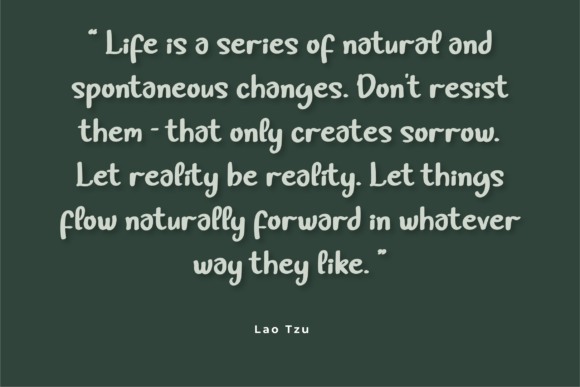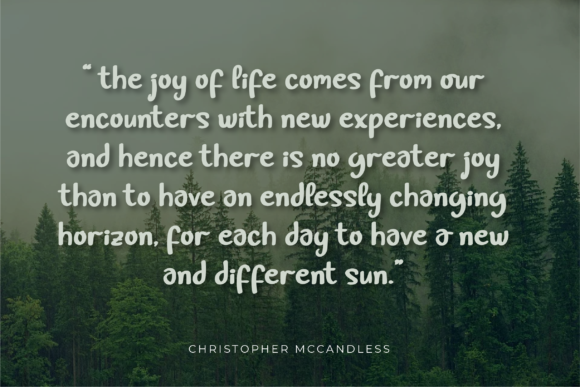
Quick Camping Font
db-ku.com - Script & Handwritten -- Quick Camping is a flowing handwritten font, described by an elegant touch, perfect for your favorite projects. Fall in love with its incredibly distinct and timeless style and use it to create spectacular designs!